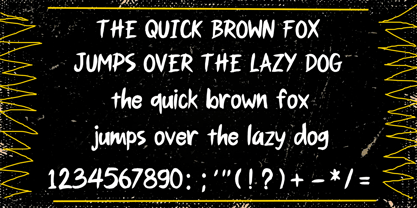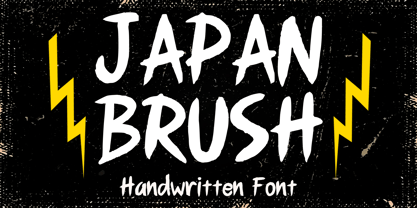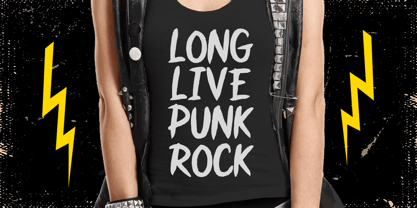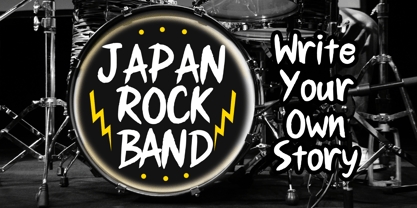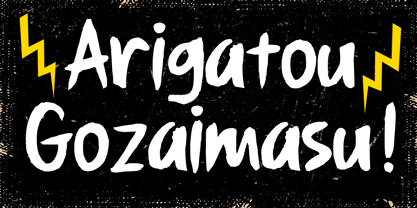
Japan Brush
La familia tipográfica Japan Brush fue diseñada por Gabriel Valentinus y publicada por Mvmet. Japan Brush contiene 1 estilos. Más información sobre esta familia
Immerse yourself in the timeless beauty of the Far East with Japan Brush, an awe-inspiring handwritten brush font inspired by Japanese and Asian aesthetics. Rooted in the vibrant rhythm and stirring soul of the region’s music and culture, this typeface radiates a distinctive casual flair. Japan Brush is a versatile font that elegantly enhances t-shirts, publications, greeting cards, stickers, posters, and packages, infusing them with its unique charm. It’s the perfect choice for any design aiming for a cozy, casual imprint. Experience the magic of Japan Brush and let its transcendent style elevate your designs into true works of art, making it ideal for branding, web design, and editorial projects.
Diseñadores: Gabriel Valentinus
Mvmet is an Indonesia-based font studio which began making fonts in early 2020. Mvmet strives to make fonts fun and accessible for both the average computer user and professional designers, with original experimental fonts and affordable trend-setting commercial fonts. Mvmet also creates custom fonts for companies who want exclusive rights and a specific design for a typeface. Clients who have used Mvmet’s custom font services include some company in Indonesia and abroad.